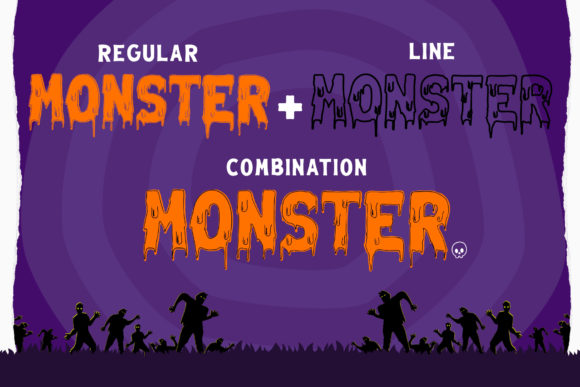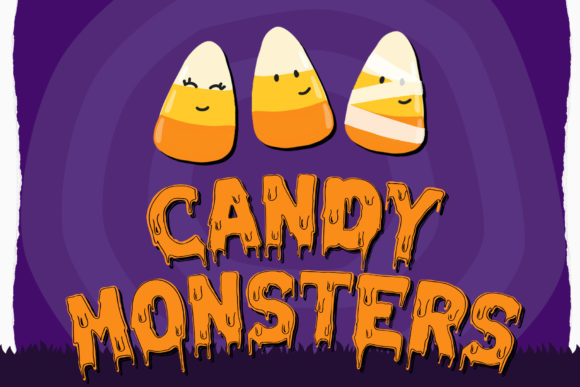
Introduction to Melted Monster Font
As the clock strikes midnight on Halloween night, you’re surrounded by spider webs, jack-o-lanterns, and eerie sounds. You’re in the middle of a creative project, and you’re struggling to find the perfect font to bring it all together. Suddenly, you stumble upon the Melted Monster Font – and everything changes.
This spooky and fun display font is a game-changer for any design project that needs a touch of Halloween magic. With its unique, melted look, the Melted Monster Font is sure to take your project to the next level. Whether you’re designing invitations, social media graphics, or even a spooky website, this font is the perfect addition to your design resource.
Key Features of Melted Monster Font
- Unique, hand-drawn design for creative projects, making it a valuable design resource.
- Perfect for designers working on projects that require a playful, whimsical touch, such as children’s book illustrations, party invitations, or creative advertisements.
Honest Review: Melted Monster Font
As a designer, I’m always on the lookout for high-quality design resources to elevate my creative projects. The Melted Monster Font is one such resource that caught my attention recently.
What works well about this font is its unique and quirky design. The creepy yet playful vibe is perfect for projects that require a touch of whimsy. The font is available for free download, making it an excellent addition to any designer’s toolkit.
- ✨ Unique and quirky design
However, there are a few limitations to keep in mind. The font may not be suitable for projects that require a more formal or professional tone. Additionally, the font’s size and clarity may not be ideal for smaller text sizes.
- ⚠️ May not be suitable for formal or professional projects
- ⚠️ Font size and clarity may be an issue for smaller text sizes
Overall, the Melted Monster Font is a great addition to any designer’s toolkit, especially for creative projects that require a unique and quirky touch.
The Melted Monster Font is perfect for designers looking for a unique and eye-catching design element. It’s ideal for projects that require a bold and creative touch, such as:
Designing for Halloween or spooky-themed events.
Creating custom designs for gaming or anime enthusiasts.
Developing a brand identity for a company with a fun and quirky personality.